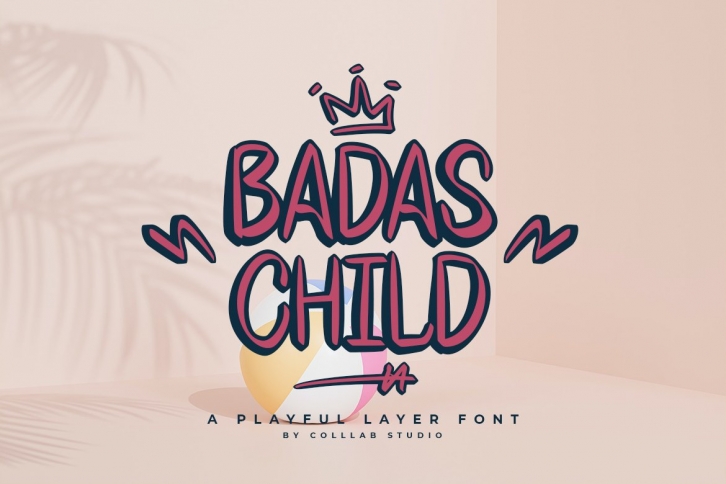
Badas Child was created from the inspiration around us. The merging of tradition and modernity. It takes lettering to another level with its diverse range of characteristics.
Create extensive designs with a complex spectrum of 3 unique and strong styles, while staying away from the common text font idea. This font is suitable for everything from print to web, with over 200 glyphs each style, it can be used in any design aspect.
Badas Child also built with OpenType features, and works best when using OpenType capable software.